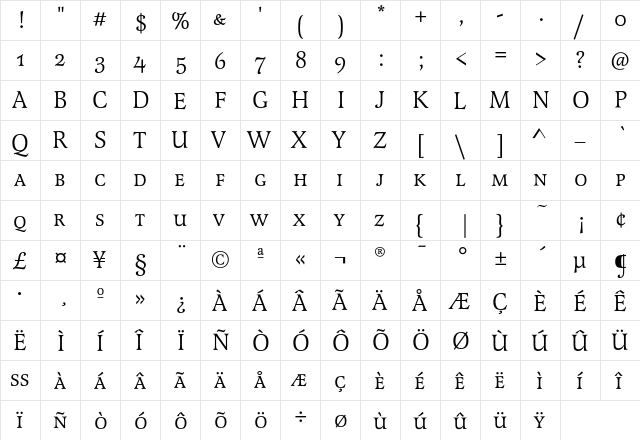
LatienneEF RomanSC Font Preview
LatienneEF RomanSC
Design Context for LatienneEF Typeface
LatienneEF offers clean, dependable letterforms without strong stylistic allegiance, making it a practical choice for designers who need flexibility.